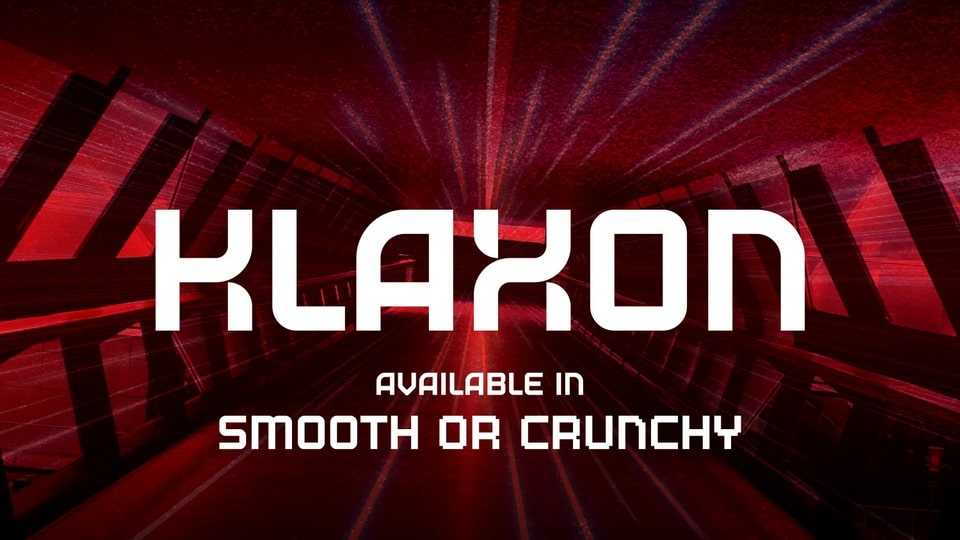
Download Klaxon font, a bold, attention-grabbing typeface that lives up to its name—big and loud, it demands focus and makes a statement wherever it appears.
Designer: Edward Batkins